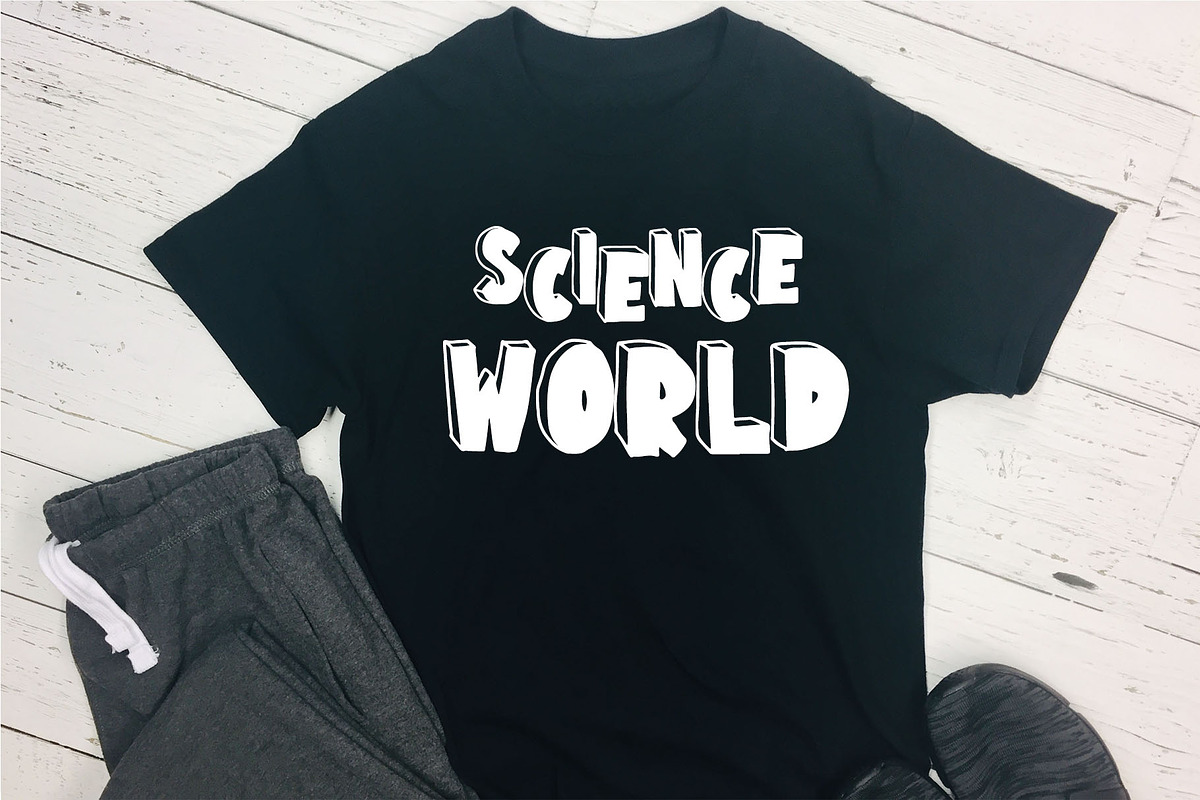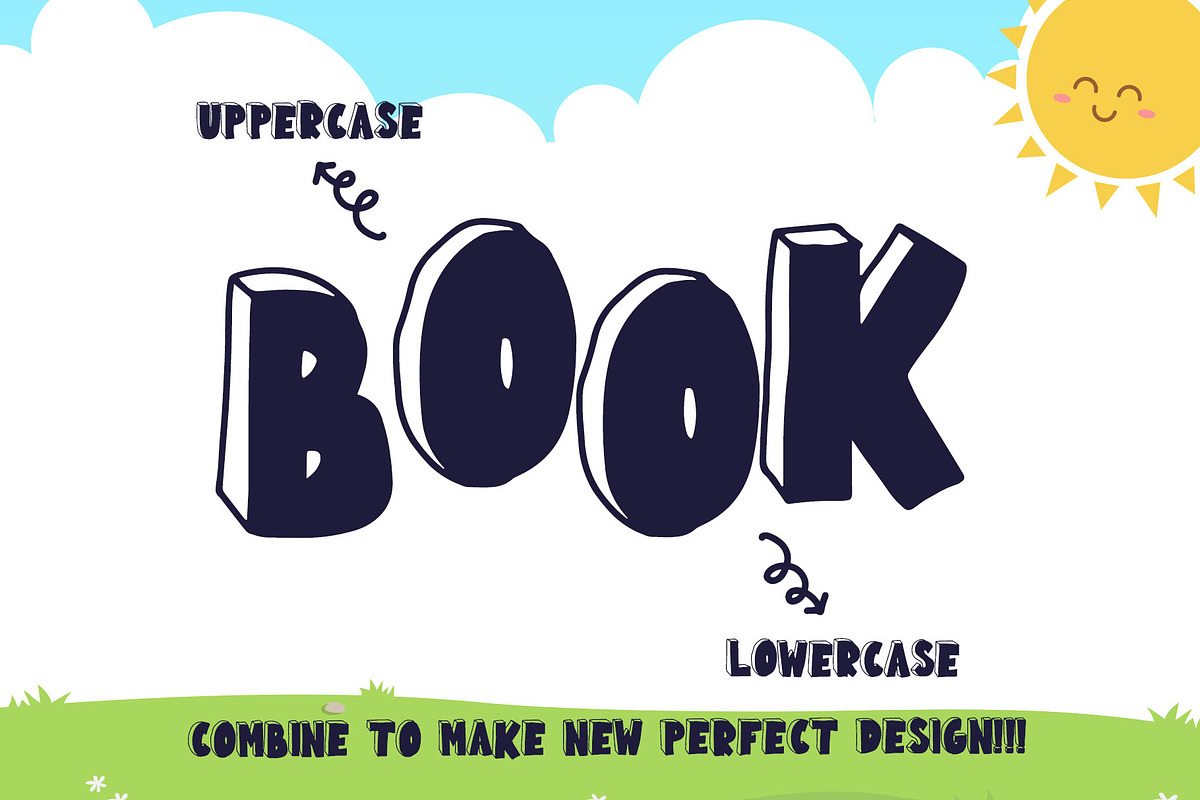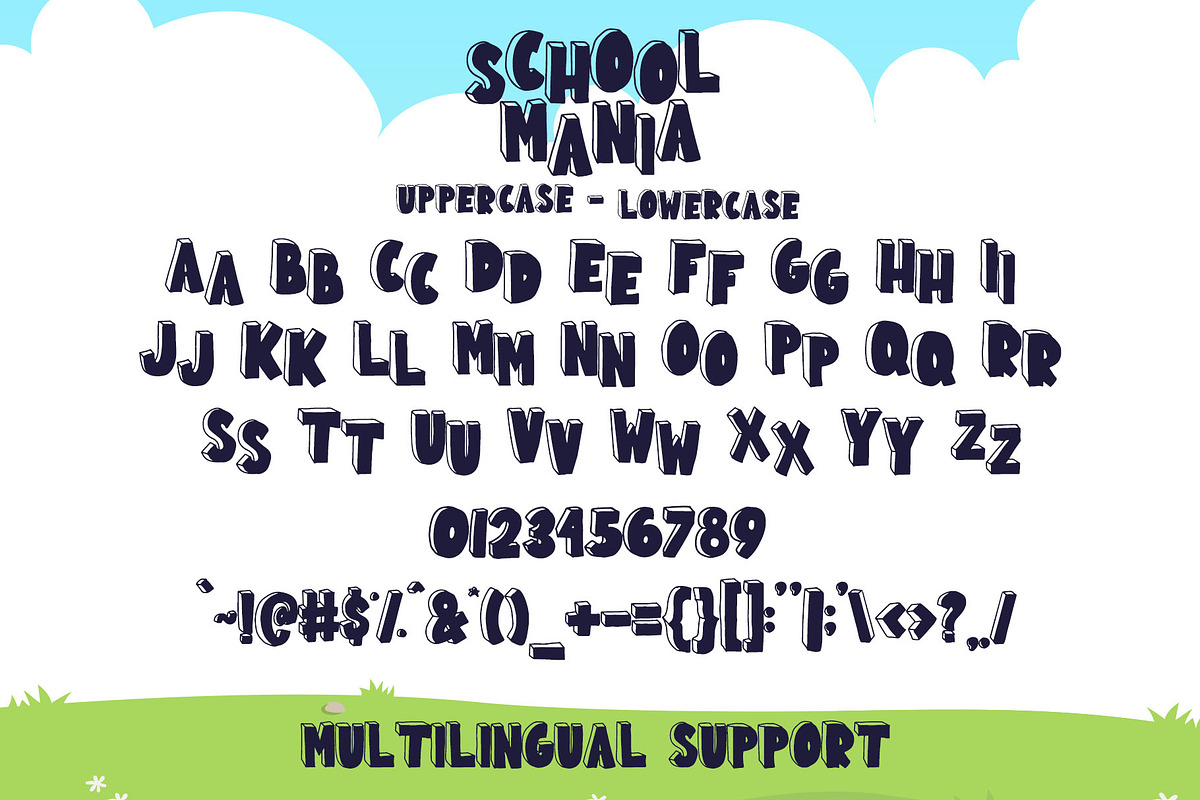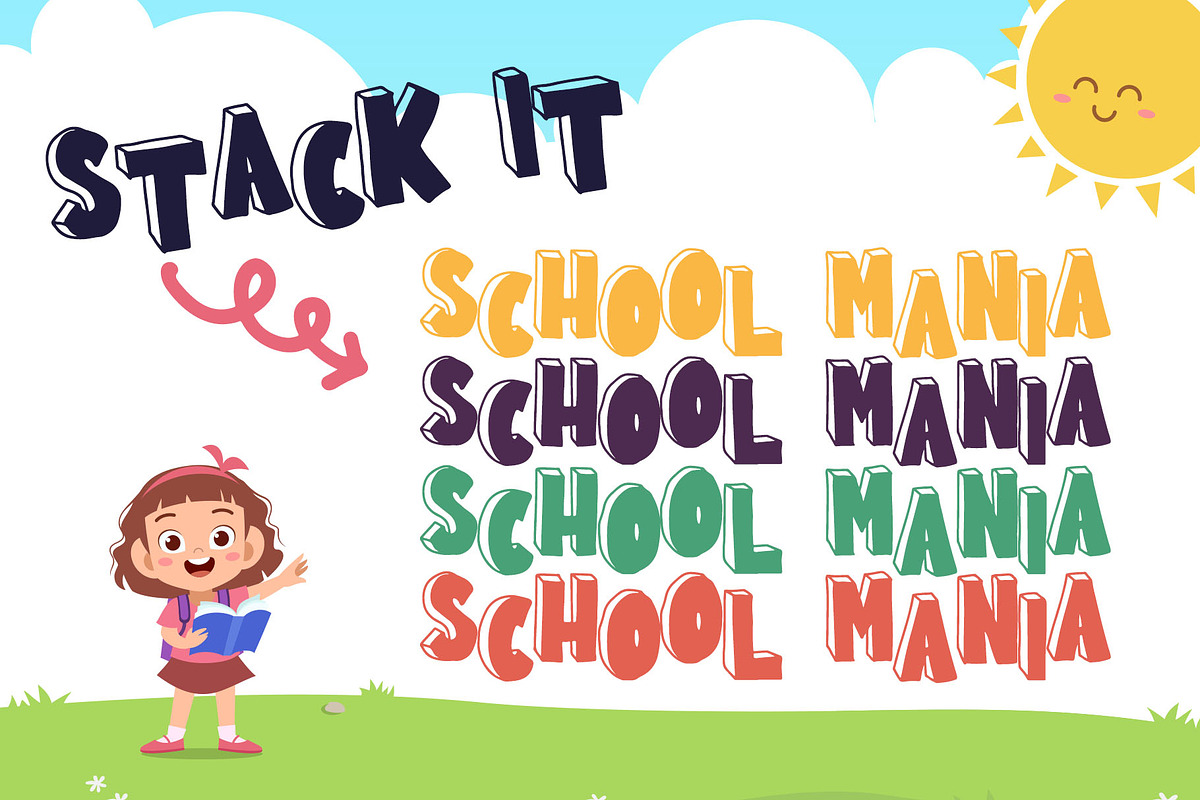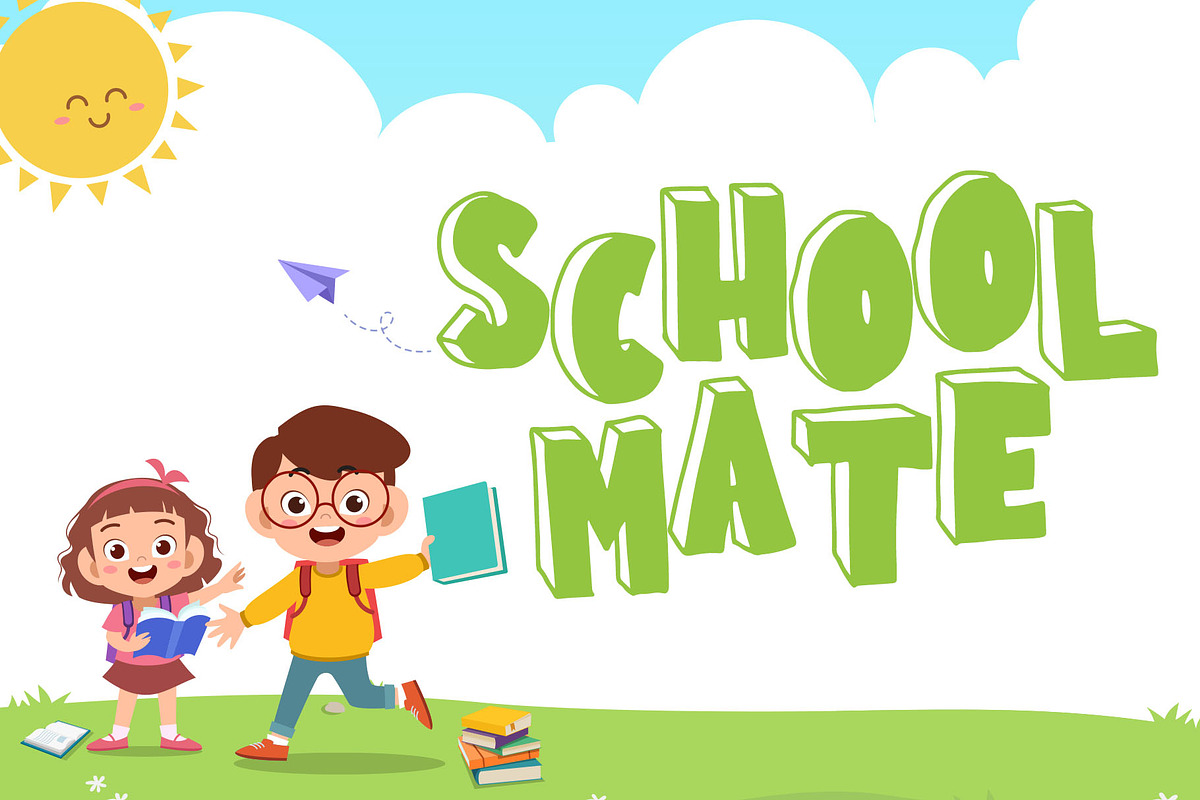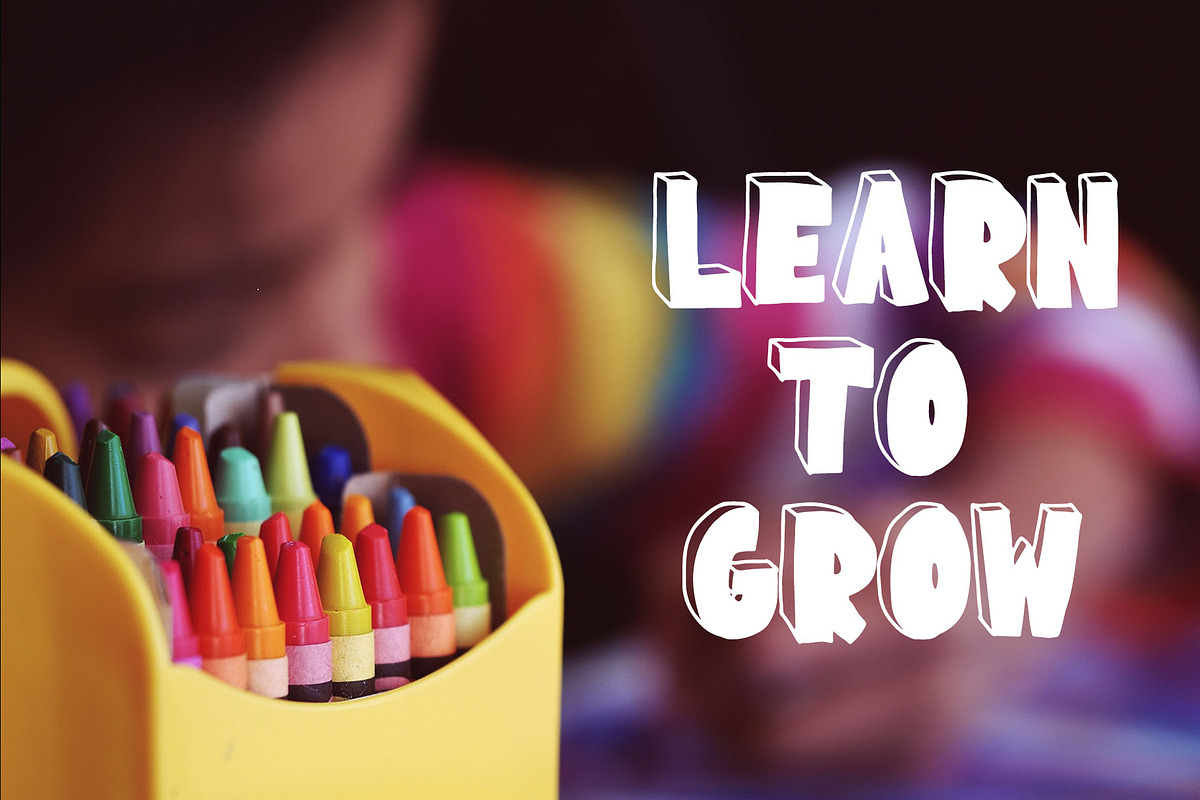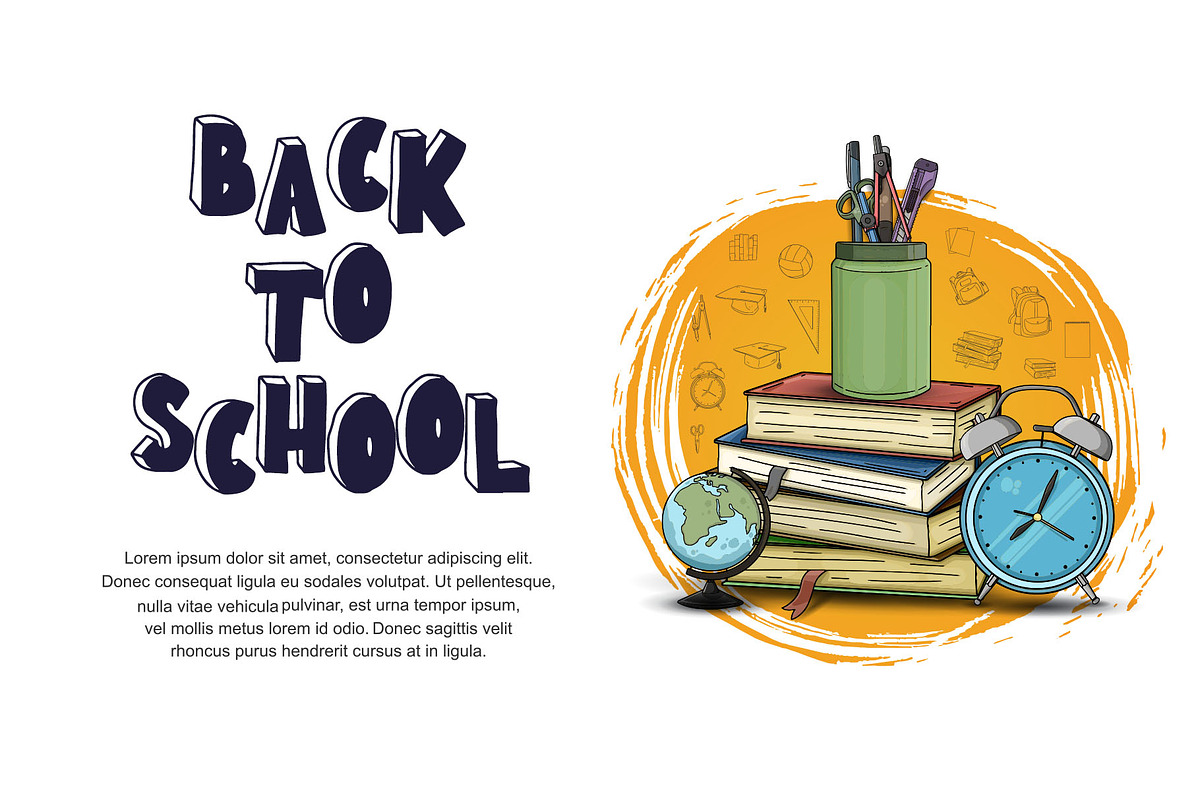
School Mania - Display Font
Introducing, School Mania Display Font
Play with School Mania font! It's a whimsical handwritten font, inspired by childhood drawing at school ! Combine the Uppercase and lowercase to have a zigzag style, or stack it to make your design more catchy!
Uppercase ( higher letter position )
Lowercase ( lower letter position )
- Uppercase ( higher letter position )
- Lowercase ( lower letter position )